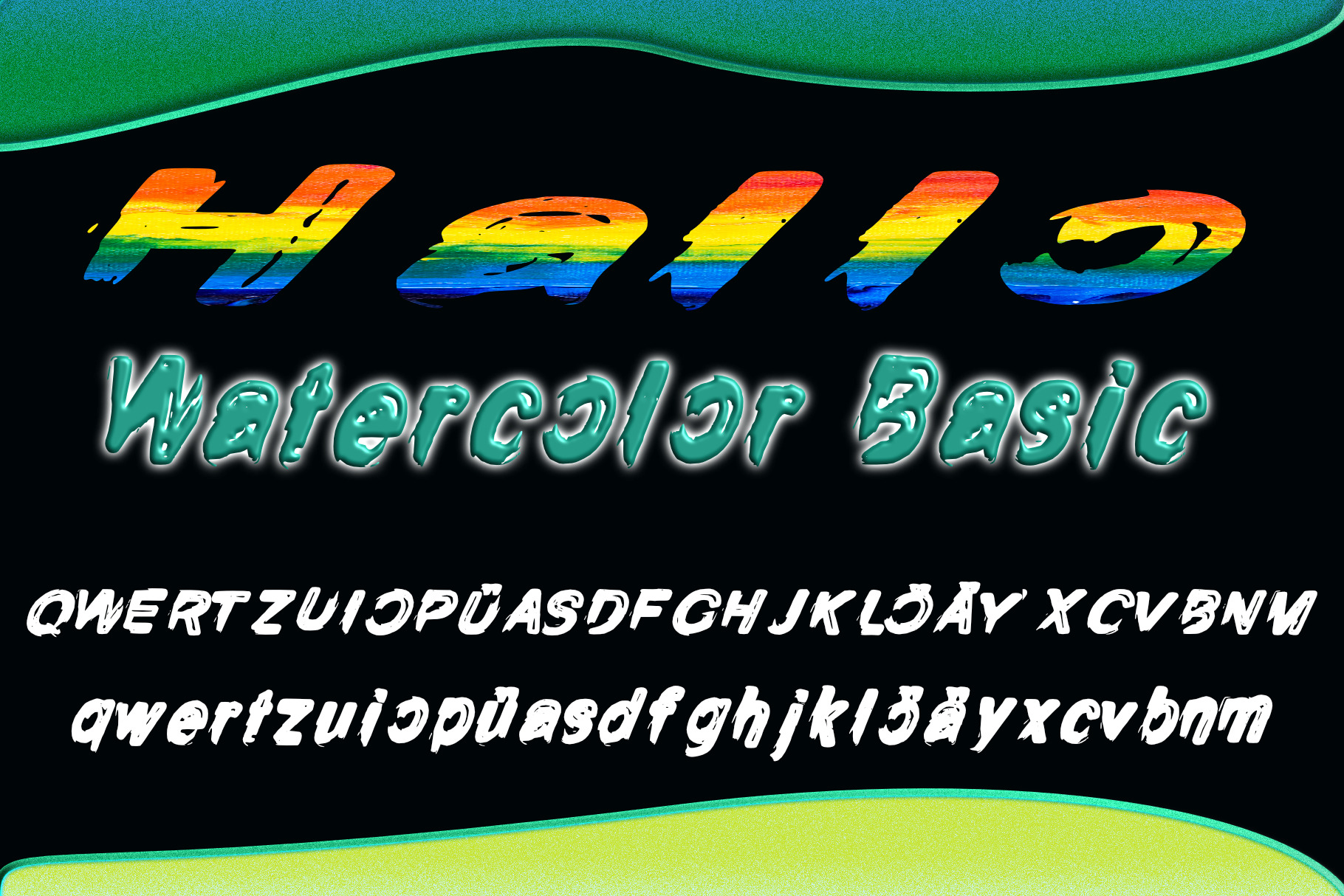
Handwritten watercolor font
Handwritten watercolor font (07)
Unique designs, ideal for further processing with effects or textures.
Ideal for advertising, marketing, invitations, congratulations, social media, web design, for anyone looking for a unique special font.